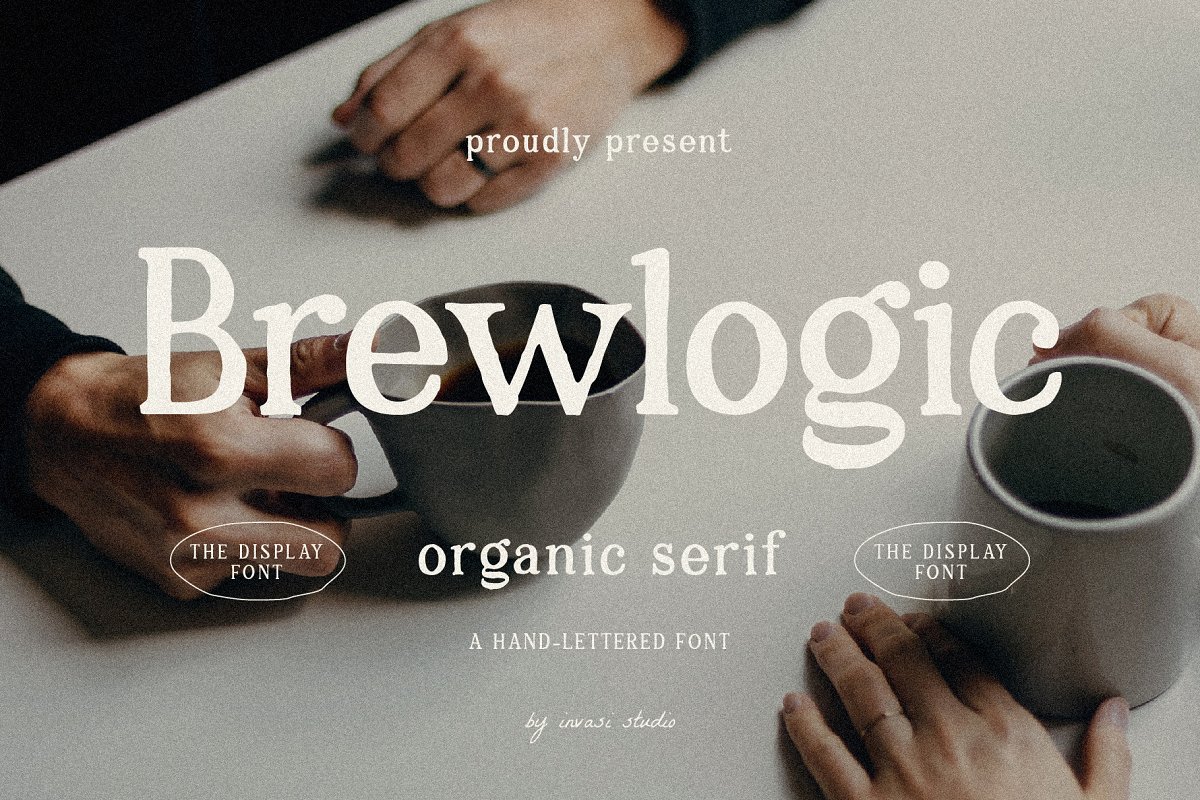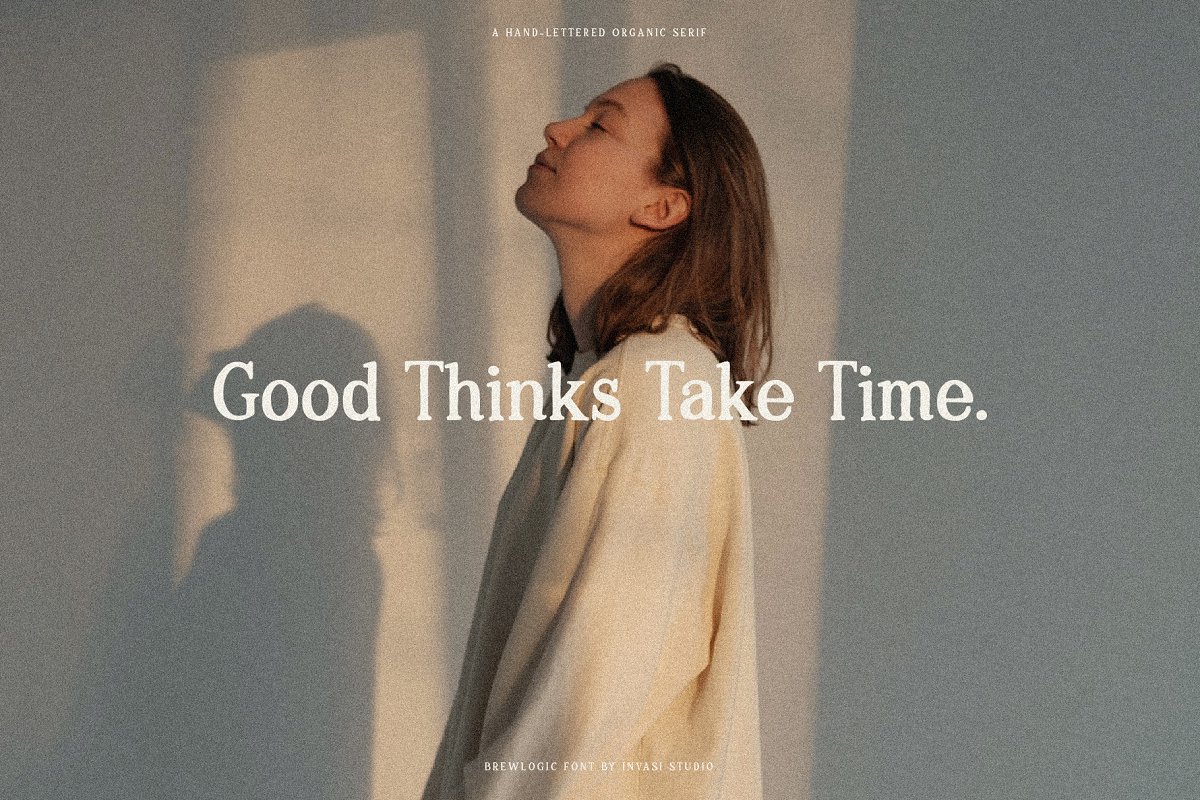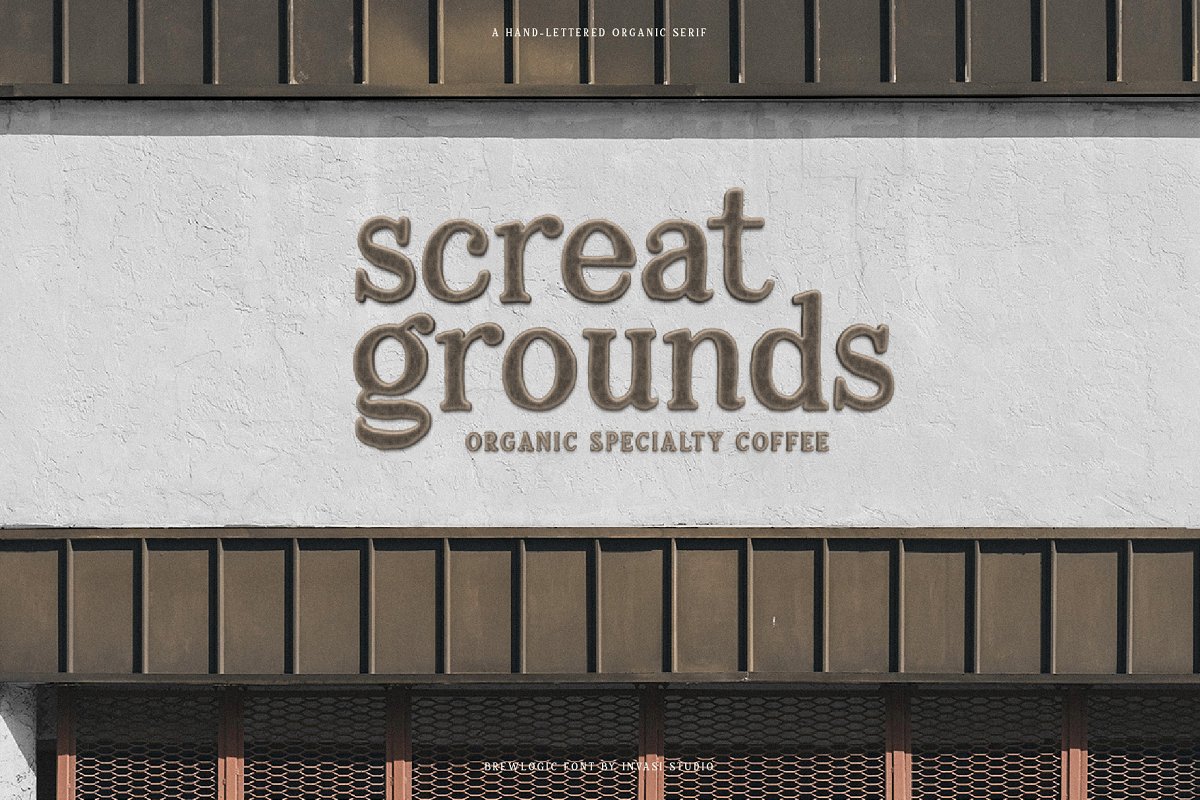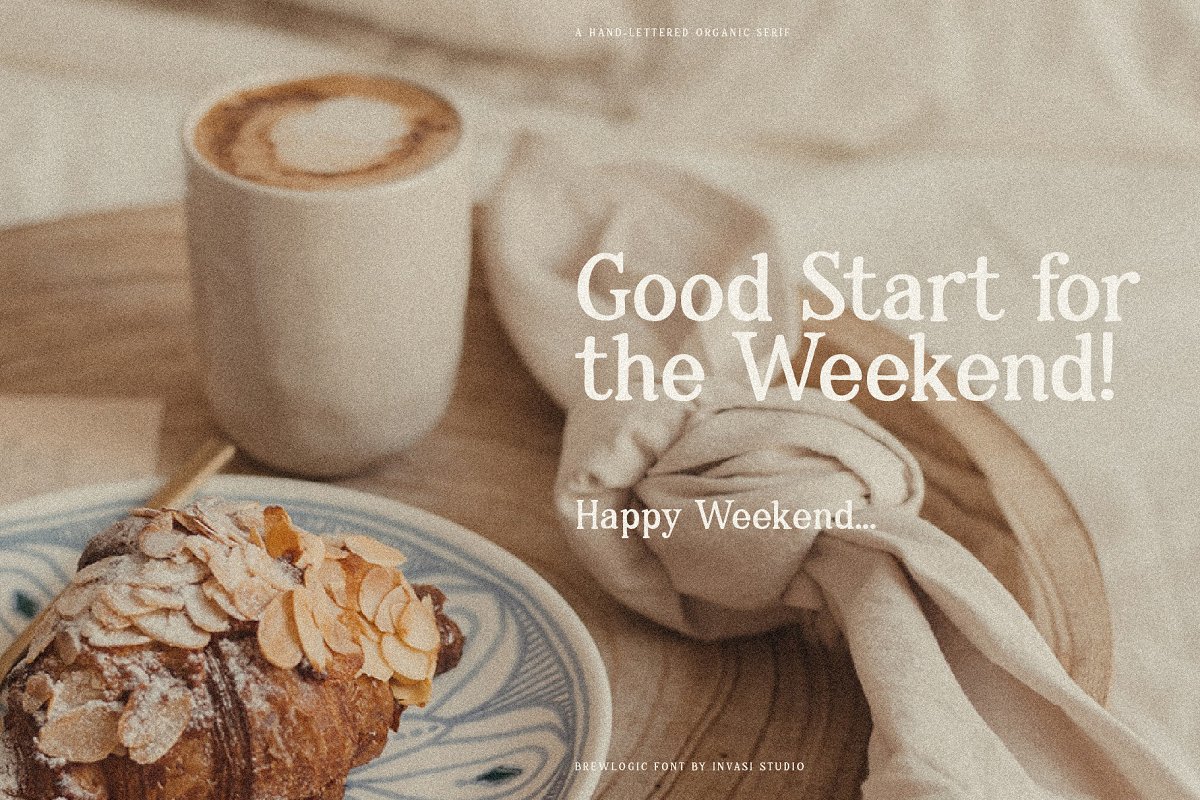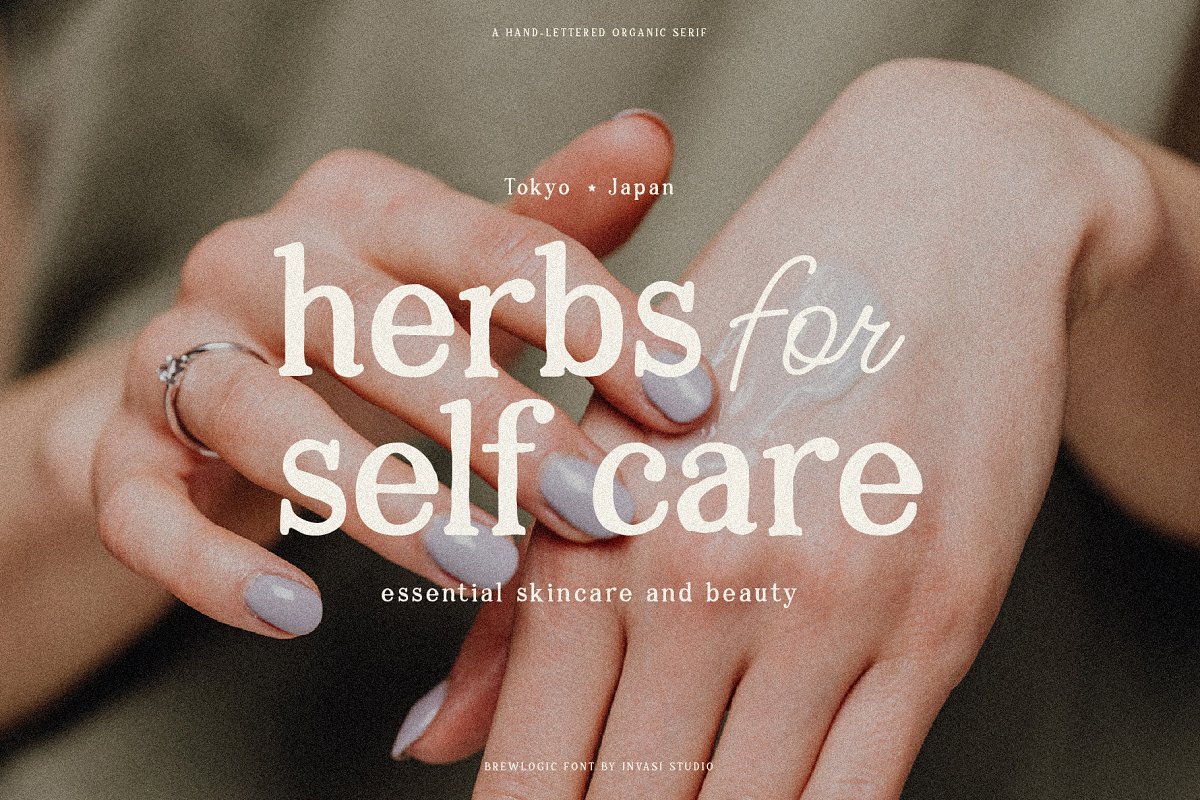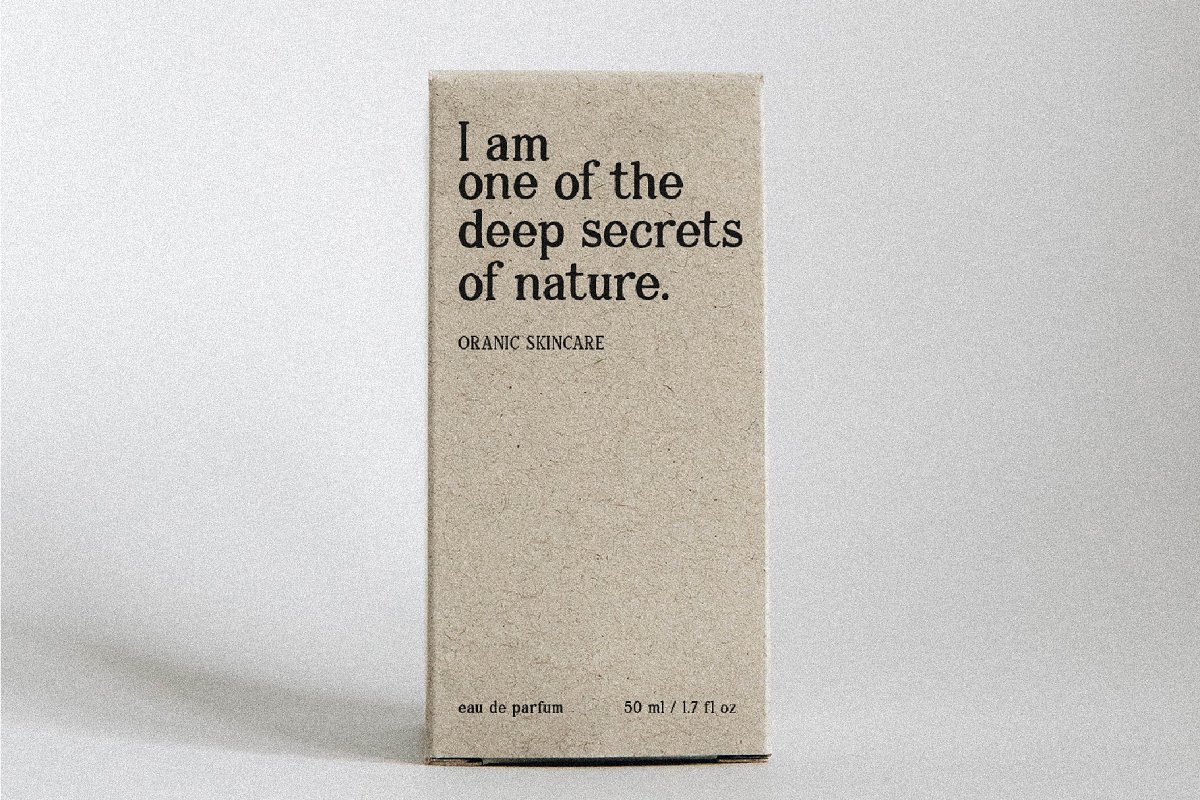
About the Brewlogic Organic Display Font
Grab your cup of coffee and enjoy the organic display font we have just for you! The Brewlogic is a hand-lettered serif font that complements the fresh new look, The best way to show your great taste is by displaying it on tags and packaging, Our organic display fonts are perfect for that, as they match your brand’s style and tone!Features:Total 292 GlyphUppercase & LowercaseNumerals & PunctuationMultilanguage Supports 60+ Latin-based languagesLigaturesWhat is inside the download files:Brewlogic (OTF, TTF, WOFF)To access the alternate glyphs, you need a program that supports OpenType features such as Adobe Illustrator CS and Adobe Indesign